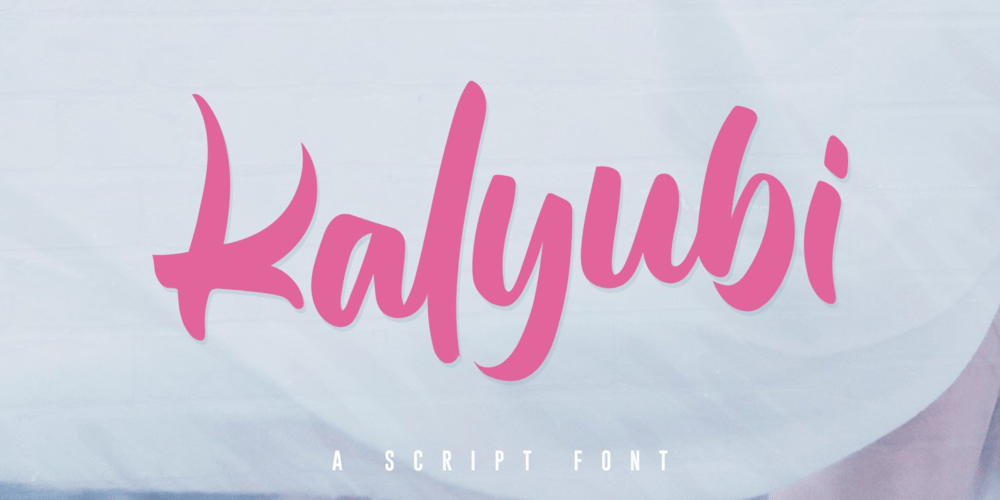
Kalyubi Font Family was designed by Irpan Maulana and published by Sabrcreative. Kalyubi contains 1 styles and family package options. Introducing Kalyubi Script, a captivating and versatile script font that combines elegance with a touch of playfulness. With its fluid and graceful letterforms, Kalyubi Script adds a unique charm to your designs, making it perfect for various creative projects. Whether you’re designing invitations, logos, branding materials, or quotes, Kalyubi Script will effortlessly elevate your work and leave a lasting impression.The Uppercase and lowercase letters of Kalyubi Script offer a seamless blend of sophistication and versatility, allowing you to create captivating typographic compositions. The inclusion of numbers and punctuations ensures that this font is well-equipped to meet all your design needs. With multilingual support, Kalyubi Script enables you to effectively communicate your message across different languages, expanding your reach to a global audience.Featuring PUA encoding, Kalyubi Script provides easy access to a wide range of alternate characters and ligatures. These special letter combinations and decorative elements add a unique and handcrafted touch to your designs, giving them an extra level of creativity and visual appeal.